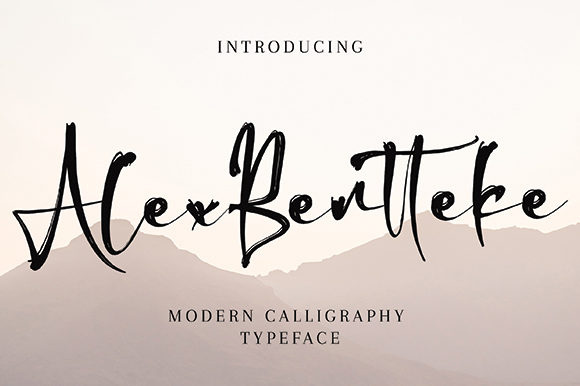
Alex Bentteke Font Download Premium Font : In the crowded world of script fonts, finding something that feels both authentic and raw is a rare delight. Enter the Alex Bentteke Font — a dry brush handwritten font that stands apart with its textured strokes and rugged charm. This font doesn’t aim for perfect elegance; instead, it leans into imperfection, giving designs an edgy, artistic personality that immediately grabs attention.
Whether you’re designing posters, logos, apparel, or social media graphics, Alex Bentteke delivers an unmistakable handcrafted vibe. Let’s explore what makes it unique, where you can download it, creative uses, design ideas, and answers to common questions.
What is Alex Bentteke Font?
Alex Bentteke is a script font created to capture the spontaneous energy of dry brush lettering. Each stroke feels hand‑painted, slightly rough around the edges, and wonderfully imperfect.
✨ Key highlights:
Dry brush texture adds grit and realism
Free‑flowing handwritten style
Bold strokes for high visual impact
Perfect for headlines, logos, and creative typography
Unlike smoother calligraphy scripts, Alex Bentteke embraces artistic messiness — which makes it feel truly handmade.
Why Designers Love Alex Bentteke Font
🖌 Authentic Handcrafted Feel:
Every letter feels like it was drawn directly onto the canvas, adding warmth and personality.
🎨 Textural Impact:
The dry brush effect makes text look dynamic and alive.
💥 Attention‑Grabbing:
Perfect for statements, product names, or anything needing to stand out.
🛠 Creative Versatility:
Use it on t‑shirts, album covers, branding, social posts, and more.
📸 Modern Meets Vintage:
Feels contemporary while nodding to retro brush sign painting.
Best Uses for Alex Bentteke Font
With its bold, hand‑drawn brush style, Alex Bentteke is perfect for creative, artistic, and modern applications:
✅ Branding & Logos:
Ideal for brands wanting a raw, authentic identity.
✅ Posters & Flyers:
Large brush strokes make titles impossible to miss.
✅ Merchandise & Apparel:
Great for slogans, quotes, or band names on t‑shirts and hoodies.
✅ Album Covers & Event Promotions:
The artistic texture pairs well with music and cultural events.
✅ Social Media Graphics:
Add energy to Instagram posts, stories, or YouTube thumbnails.
✅ Packaging Design:
Craft beers, streetwear labels, or handmade product packaging.
Design Tips for Using Alex Bentteke Font
✨ Use It Large:
The dry brush details shine in big titles, headers, or logos.
🎨 Contrast With Simplicity:
Pair with a clean sans‑serif (like Montserrat or Helvetica) for supporting text.
📏 Mind Your Spacing:
Tighter tracking keeps strokes connected; looser spacing can feel more airy.
🌿 Play With Colors:
Bright or metallic shades can modernize the rugged brush style.
🖼 Layering Effects:
Combine with textures or gradients for depth.
Creative Design Ideas with Alex Bentteke Font
🛍 Streetwear Brand Logo:
Bold brand name in Alex Bentteke for an edgy, urban look.
🎶 Music Poster:
Band name in large brush script over a minimalist background.
📱 Instagram Quote:
Inspirational text styled in Alex Bentteke for an artistic vibe.
🍺 Craft Beer Label:
Product name or brewery brand in rugged dry brush script.
🎟 Festival Flyer:
Event title in Alex Bentteke with bright colors for modern appeal.
Why Alex Bentteke Font Stands Out
Many script fonts aim for smooth elegance, but Alex Bentteke Font dares to be different. Its dry brush texture feels alive and authentic, giving your design real personality.
This is the font for creators who want their work to look raw, bold, and memorable — perfect for artistic brands, modern posters, and creative merchandise.
No — it’s best for titles, headings, and short text.
Final Thoughts: Make Your Designs Stand Out with Alex Bentteke Font
Alex Bentteke Font proves that imperfection can be beautiful. Its raw, hand‑painted style brings life and attitude to any creative project — from logos and posters to packaging and apparel.